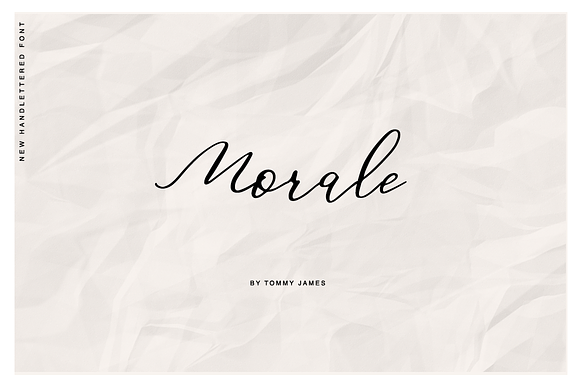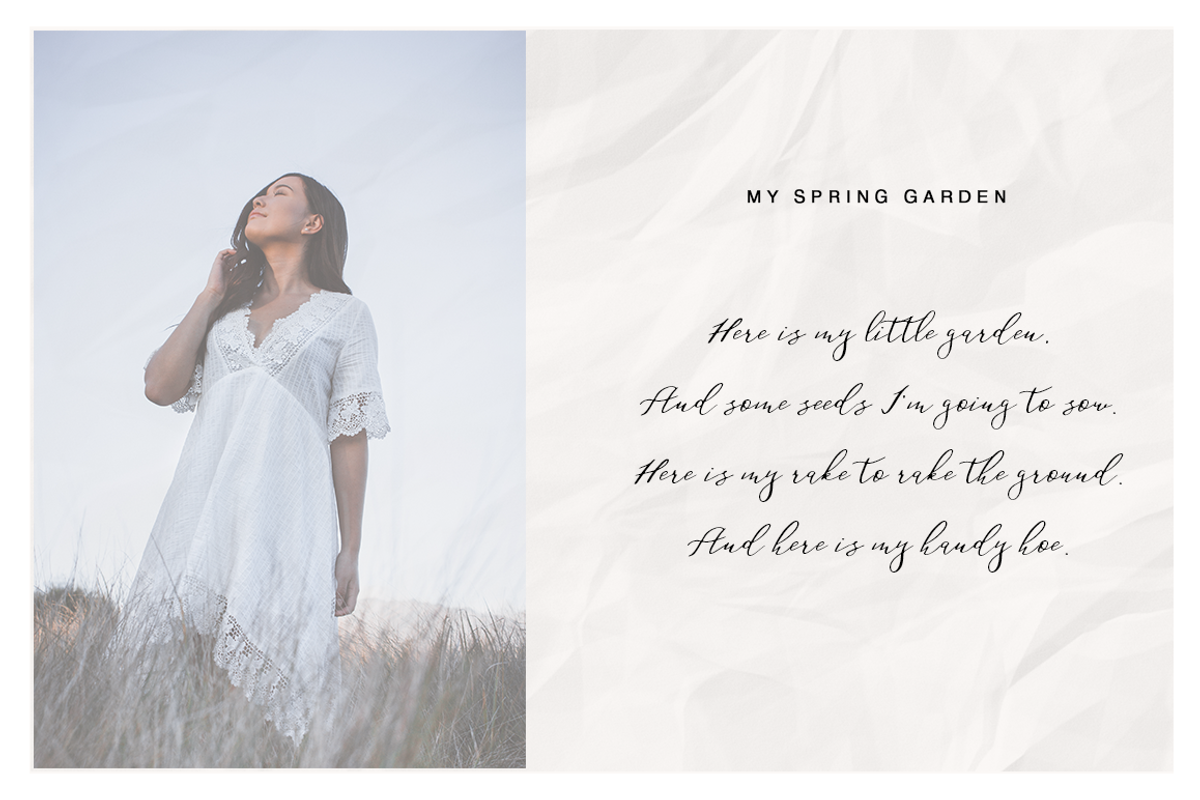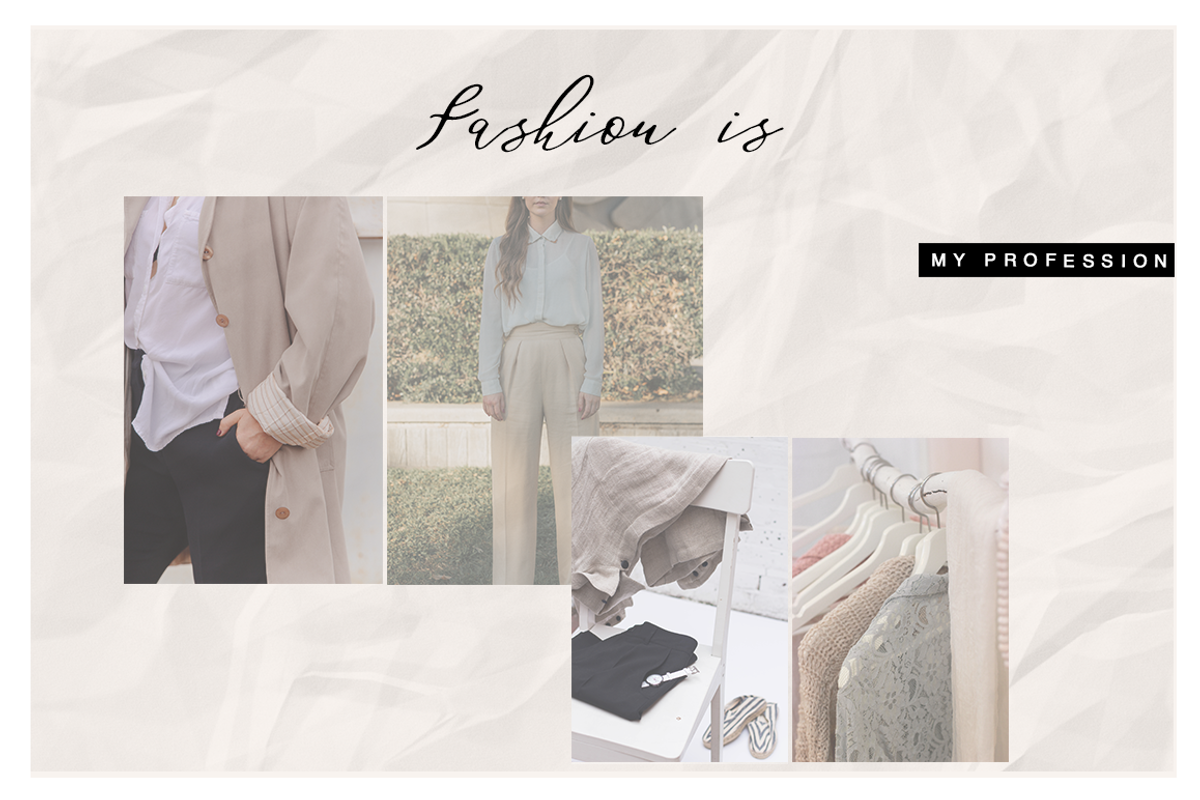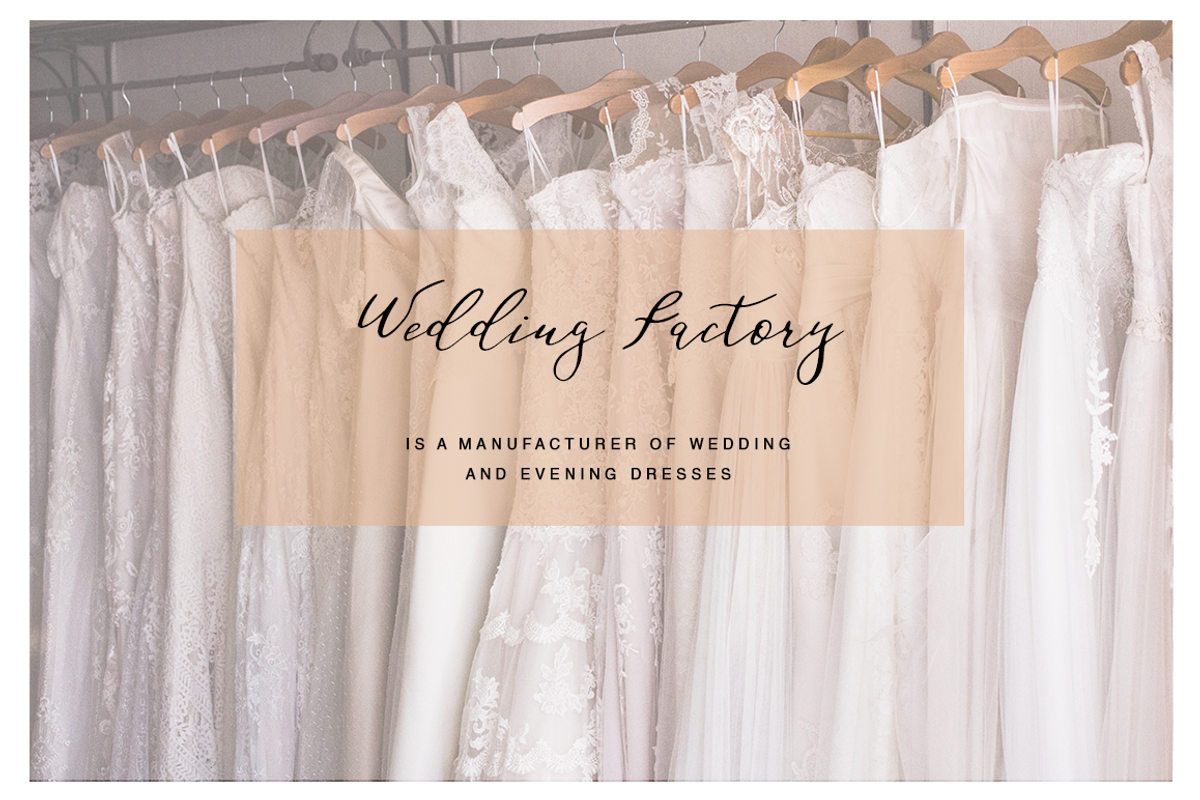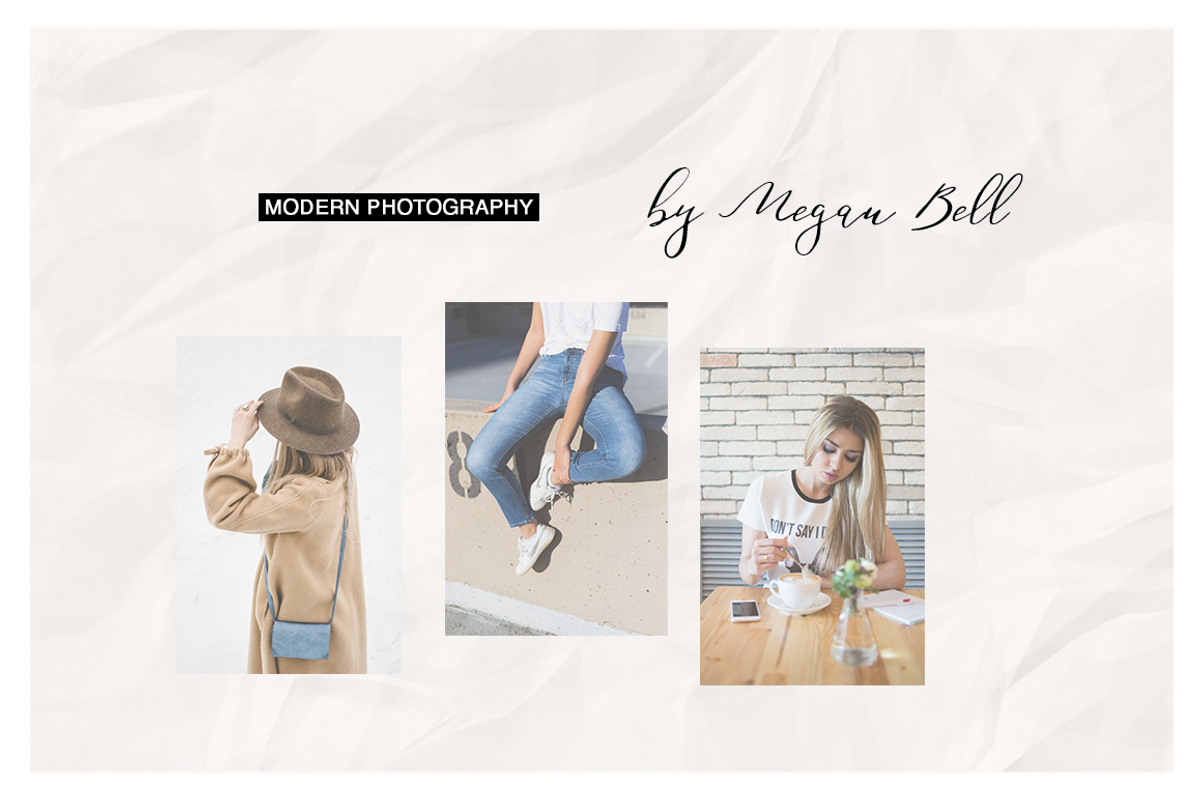
Morale - Hand lettered font
Morale - a new fresh handmade calligraphy font.
Very suitable for greeting cards, branding materials, business cards, quotes, posters, and more!This font are perfect for wedding postcard. Or you can create perfect and unique design of your logo, blog, stationery, marketing, magazines and more :)